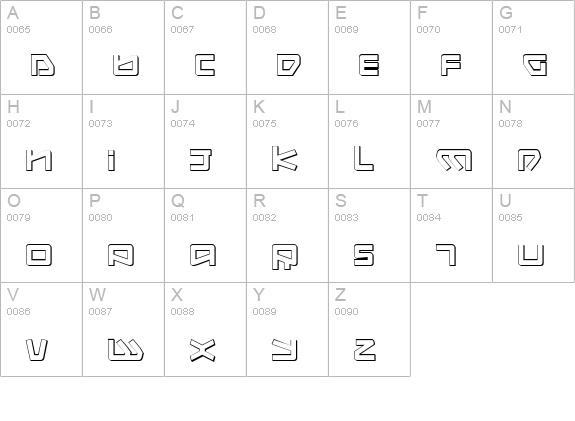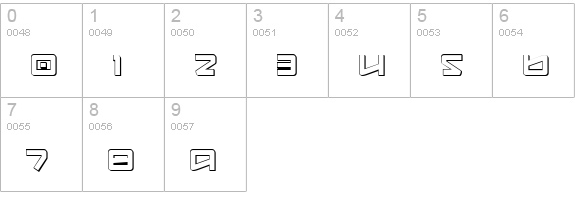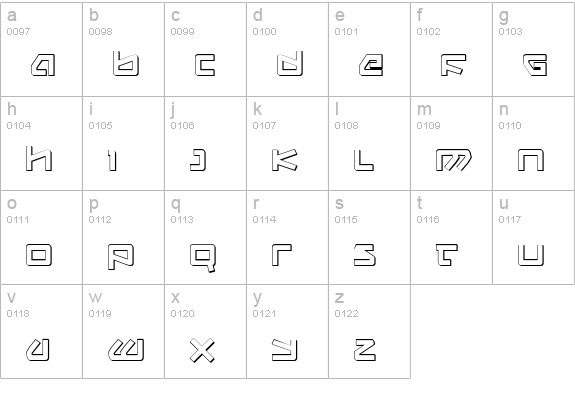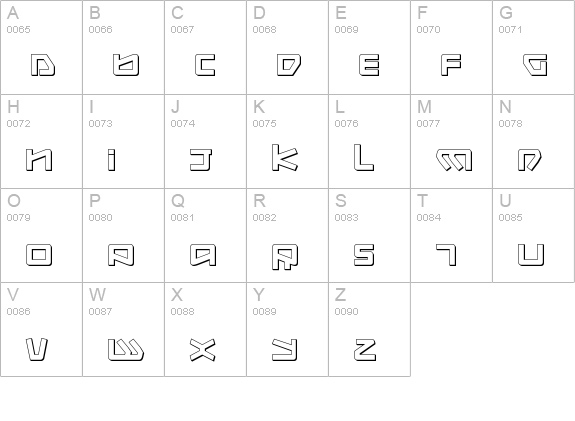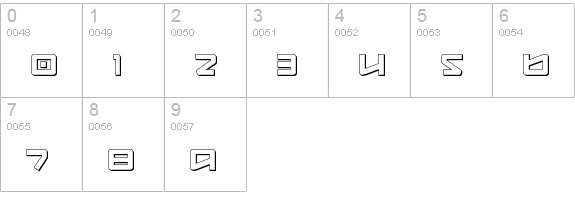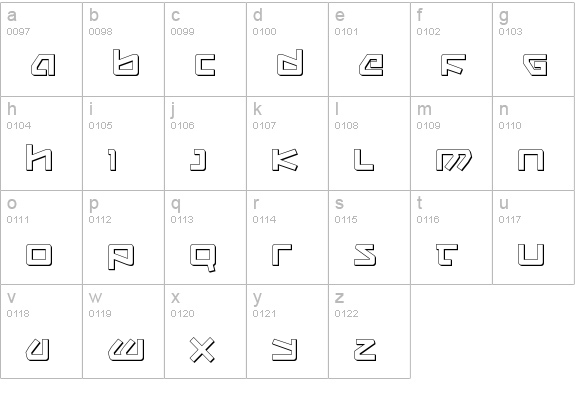
Immerse yourself in the enchanting world of Kobold 3D font, a captivating typeface that brings depth and dimension to your designs. With its intricate 3D effect and playful charm, Kobold is sure to make your text stand out in any project. This unique font is not only visually striking but also versatile, suitable for a wide range of creative applications. Whether you're designing a poster, logo, or website, Kobold 3D font will add a touch of whimsy and sophistication to your work. Best of all, Kobold 3D font is available for free download at FontsMarket.com. So why wait? Add a touch of magic to your designs with Kobold 3D font today!